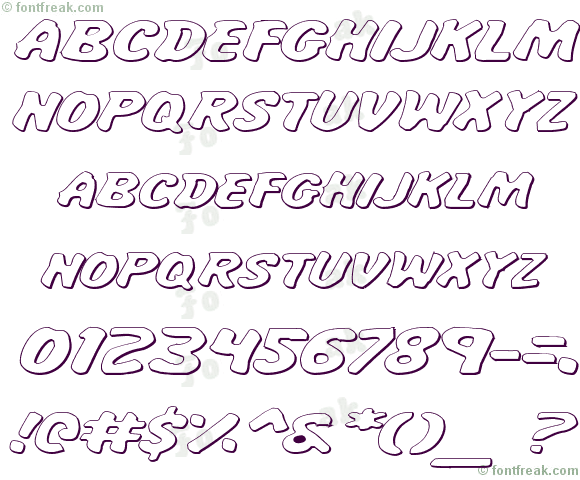
Miss Amanda Shadow ItalExp
About Miss Amanda Shadow ItalExp
The Miss Amanda Shadow ItalExp font, designed by Daniel Zadorozny in 2004, is a captivating display typeface that falls under the decorative category. This font features a unique blend of playful curves and shadowed elements, giving it a whimsical yet bold appearance. The stroke weight is moderately thick, which adds to its visibility, while the contrasting shadow effect lends depth and dimension. The spacing between the letters is well-proportioned, ensuring legibility without compromising its artistic flair.
Ideal for a variety of creative projects, the Miss Amanda Shadow ItalExp font excels in use cases such as wedding invitations, where its charming style can elevate the message of love and celebration. It also works beautifully in movie posters, capturing attention with its distinctive look that hints at fun and adventure. Small business owners can utilize this font for eye-catching restaurant menus or promotional materials, making their branding stand out in a competitive market. Additionally, content creators looking to add a unique touch to social media graphics will find this font to be an excellent choice.
The target audience for this font includes graphic designers, small business owners, and content creators who seek to infuse creativity into their projects. Whether for print or digital use, its playful character makes it a versatile option for various applications.
What sets the Miss Amanda Shadow ItalExp font apart is its ability to combine fun and professionalism in a single typeface. The playful shadows and italicized design make it perfect for projects that need a touch of whimsy while still being clear and effective. For those interested in incorporating this distinctive font into their designs, a Miss Amanda Shadow ItalExp font free download is available, allowing for easy access to this delightful typeface.